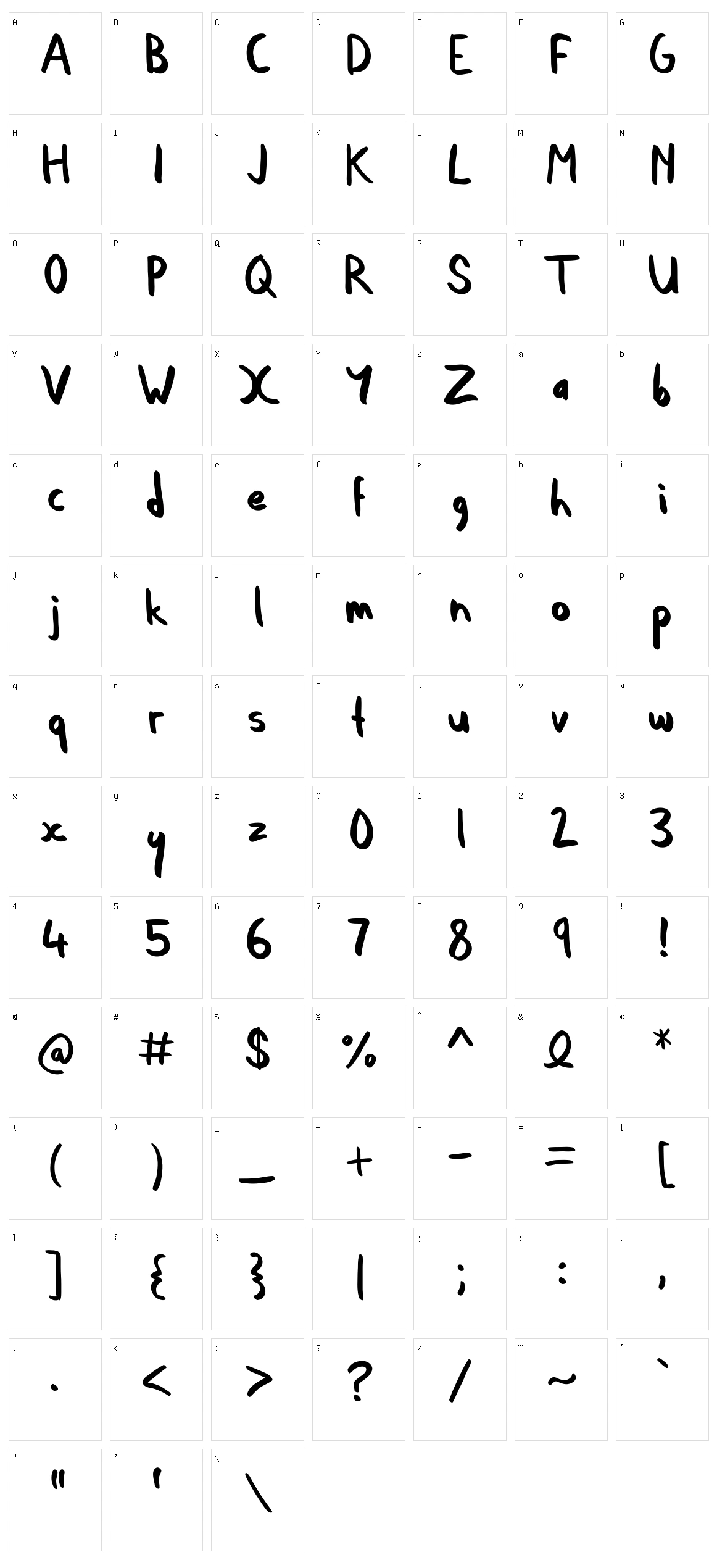
The free font Dylan is carefully designed by Dylan Culhane, showcasing a thoughtful balance of creativity and usability and falls under the Script font style. When you download the ZIP file, it contains only 28.43 KB of font files, making it lightweight and quick to download. Please review the license details below to understand permitted usage and distribution rights. If license information is not available, we recommend using this font for personal projects only or contacting the author directly for commercial usage permissions.